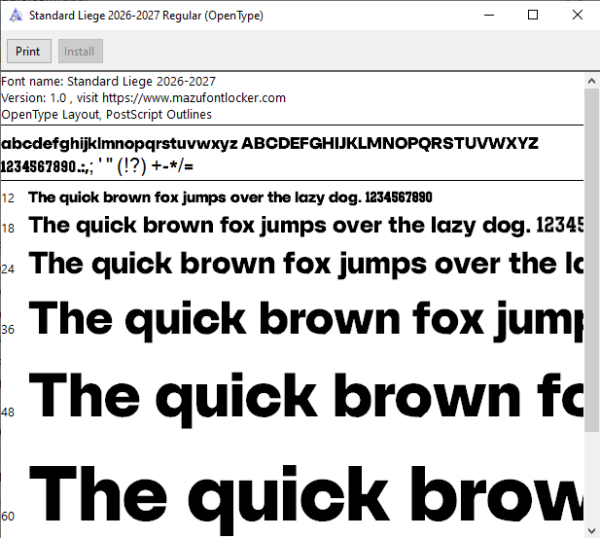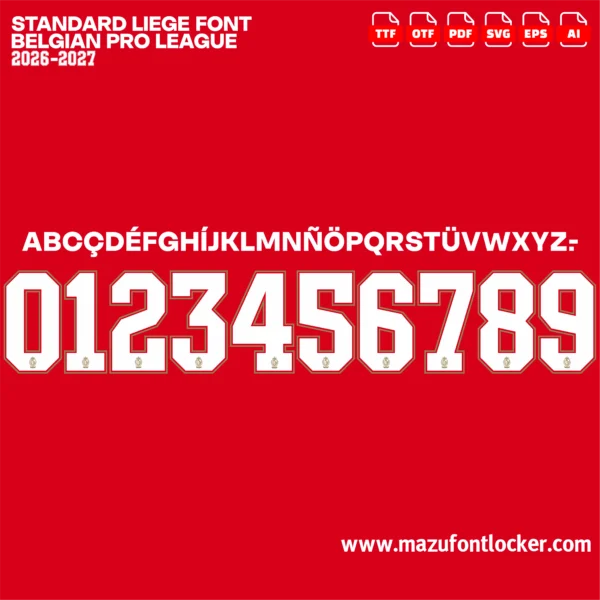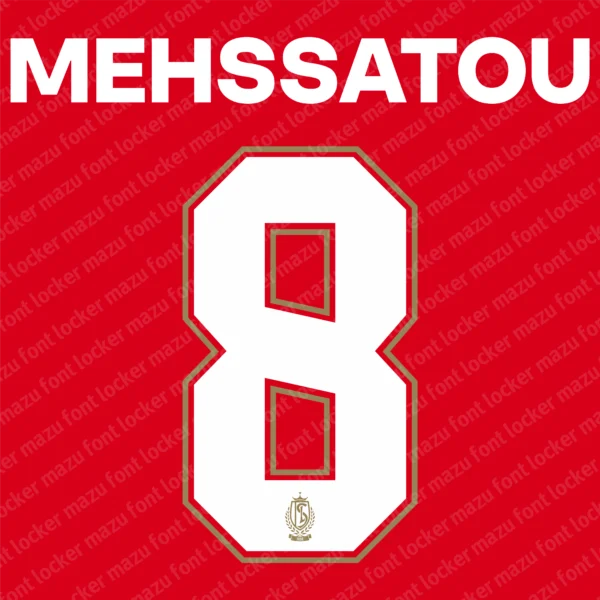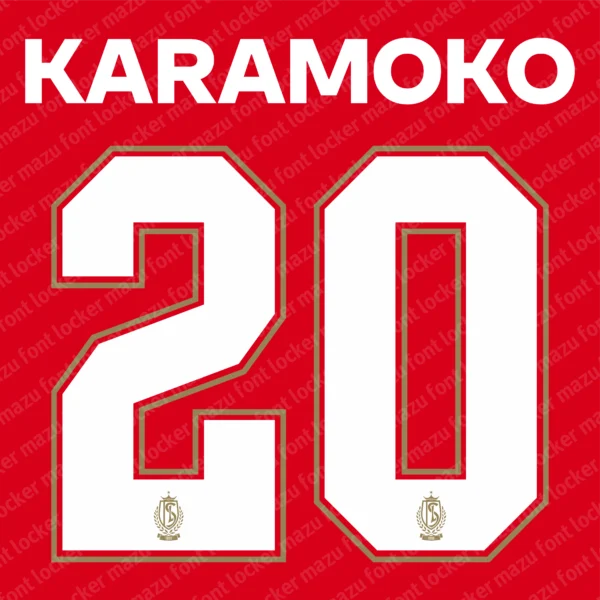
Standard Liege 2026-2027 Font Vector – Epic Rouches Red Masterpiece
This premium font captures the bold, sophisticated, and championship-driven typography that perfectly embodies the spirit of the Rouches — delivering elite Belgian fire, world-class ambition, unbreakable determination, attacking brilliance, and the passionate football culture that transformed Standard Liège into one of Europe’s most feared and celebrated football giants.
Standard Liège 2026-2027 Font Vector – Stunning Belgian Red Devils Typeface
The Standard Liège 2026-2027 Font Vector is a premium typeface that accurately recreates the official match lettering worn by Standard de Liège during the 2026-2027 season. This high-quality vector font kit captures the bold, passionate, and modern typography that represents one of the most historic clubs in Belgian football.
Designed for professional designers, football enthusiasts, and Standard Liège supporters, the Standard Liège 2026-2027 Font Vector delivers authentic results for jersey mockups, fan merchandise, retro football projects, social media graphics, and matchday designs. It perfectly complements the iconic red-and-white kits worn by Les Rouches throughout the 2026-2027 campaign.
Why Choose Standard Liège 2026-2027 Font Vector
This font stands out thanks to its faithful recreation of the official shirt lettering used by Standard de Liège during the 2026-2027 season. Every character has been carefully crafted to match the authentic player names and numbers seen on the pitch. Whether you are designing realistic kit concepts or creating football-themed artwork, the Standard Liège 2026-2027 Font Vector delivers professional-quality authenticity.
The letterforms feature a clean, athletic, and contemporary design that reflects Standard Liège’s rich heritage and fighting spirit in Belgian and European football. The balanced proportions and sharp detailing provide excellent readability while maintaining the club’s proud identity from Liège.
The numerals are bold, modern, and highly recognizable, closely matching the official squad numbers used throughout the 2026-2027 season. The vector format ensures perfect scalability for both digital and print applications.
• Complete uppercase A–Z and numbers 0–9 in authentic Standard Liège 2026-2027 style
• Includes accurate crest glyph positioning for realistic jersey customization
The Standard Liège 2026-2027 Font Vector is an independently designed typeface package created to replicate the official shirt lettering style used by Standard de Liège during the 2026-2027 season. It is ideal for retro football projects, jersey customization, fan artwork, historical recreations, and sports design work.